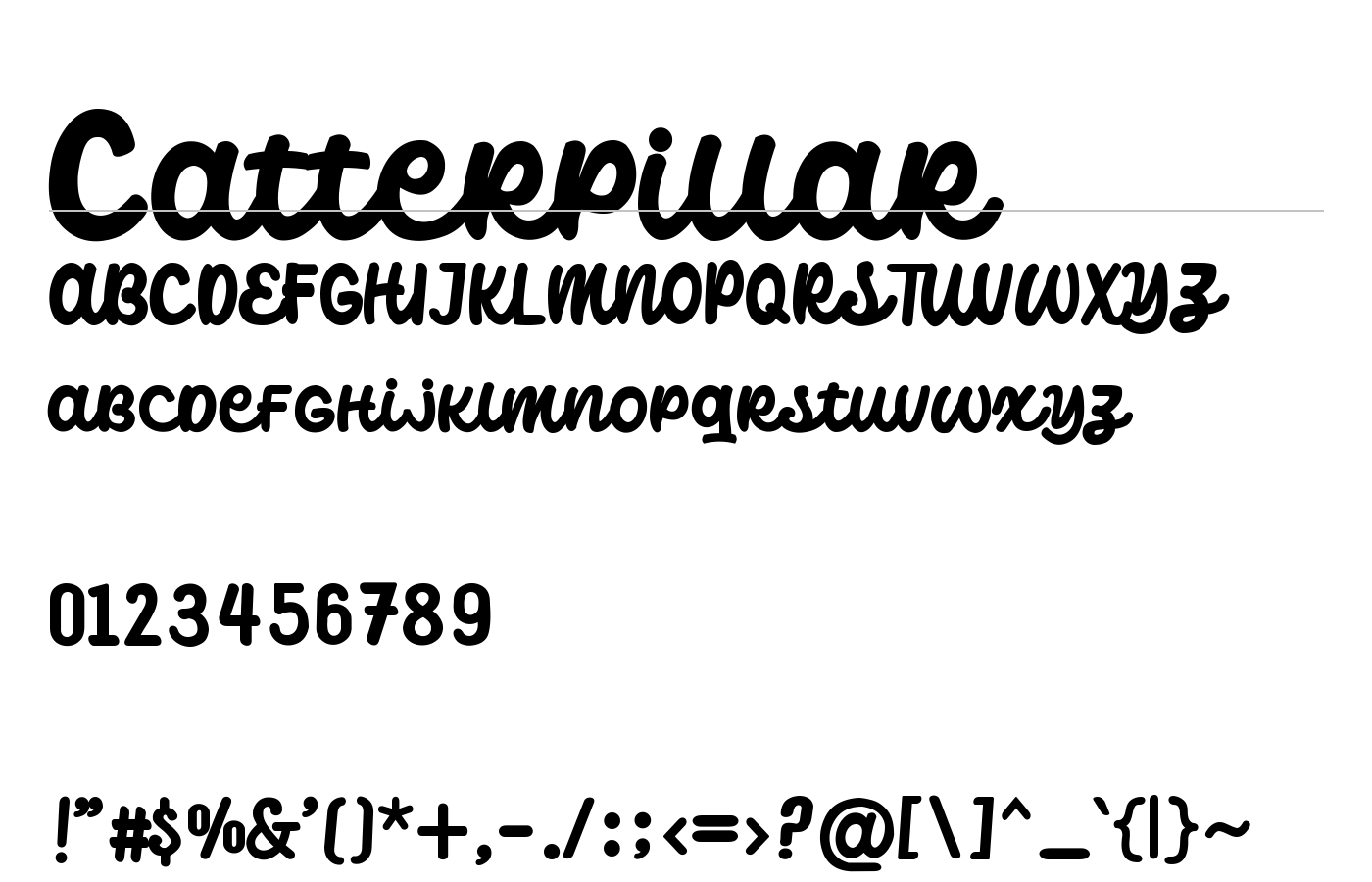
Catterpillar is a bold, playful script font with a smooth, rounded style that feels friendly and approachable. Its thick strokes and casual, hand-drawn appearance make it ideal for fun, creative branding, children’s products, or informal headlines where warmth and personality are key. This font works well in logos, posters, and packaging that want to convey energy and cheerfulness without sacrificing readability.
Catterpillar Font
About Catterpillar Font
| Font family | Catterpillar Font |
| Designer | Abu Rumaisha |